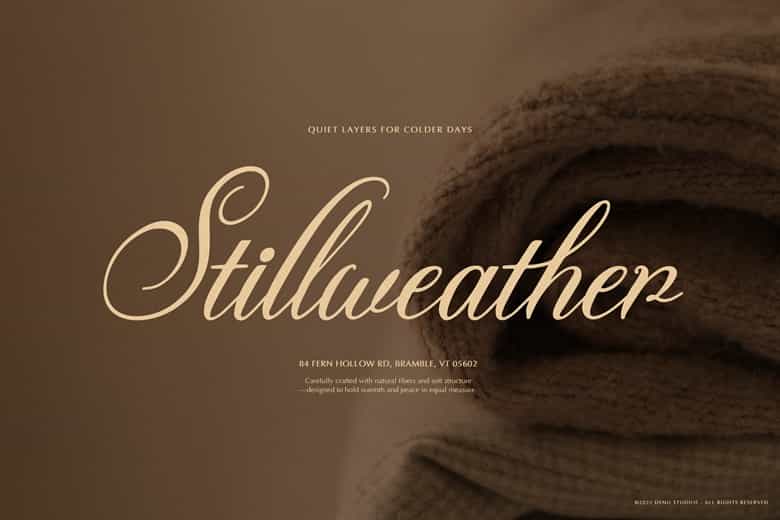
Kollegaly Rosalina is a new calligraphy script font. It’s suitable for any projects such as: logos, branding projects, homeware designs, product packaging, mugs, quotes, posters, shopping bags, t-shirts, book covers, name card, invitation cards, greeting cards, label, special events, and all your other lovely projects.